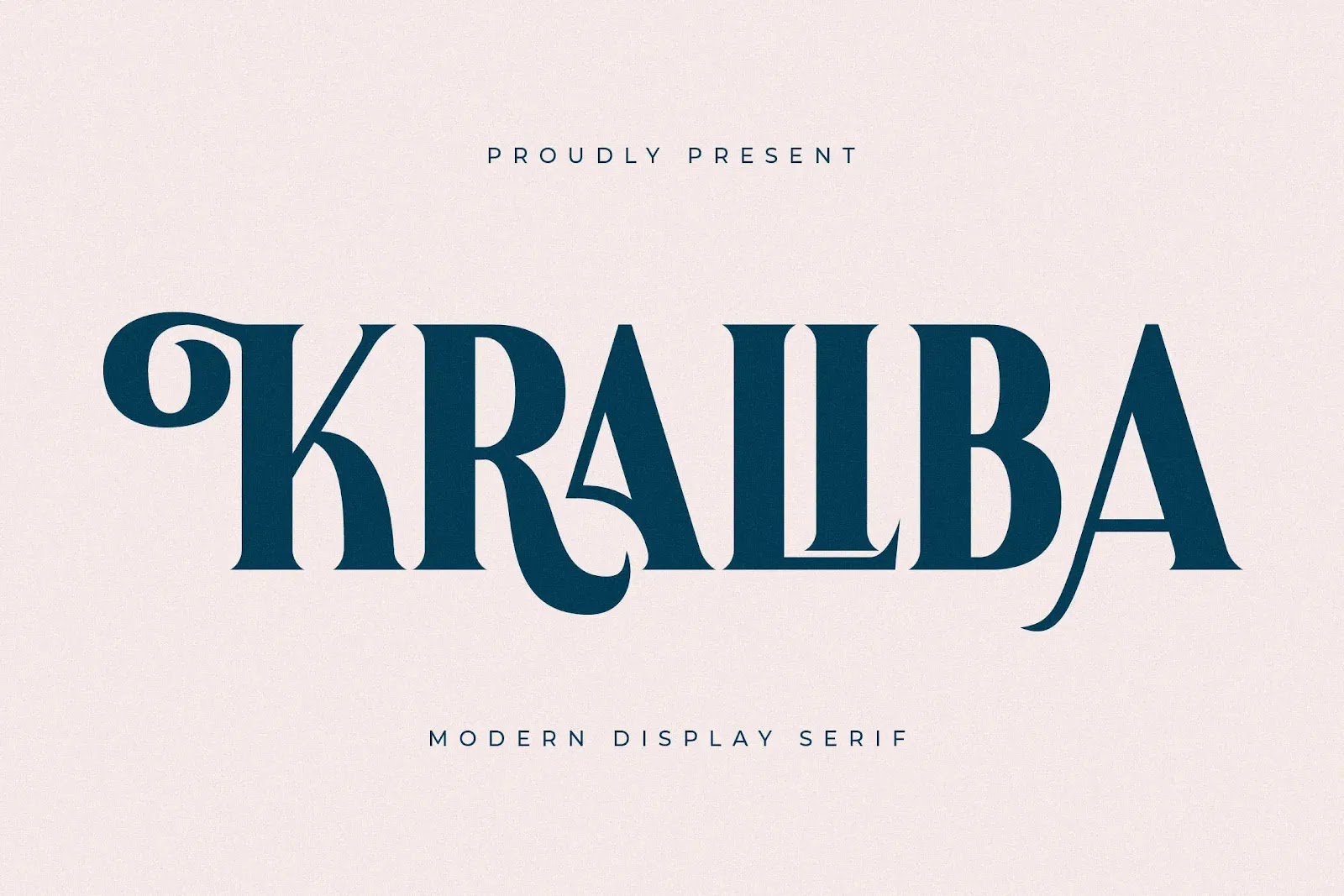
Kraliba – Modern Display Serif Font is a luxurious serif typeface that embodies elegance, sophistication, and modern flair. Its high-contrast letterforms and refined details make it an ideal choice for projects that demand a touch of class. Whether used for logos, headlines, or editorial layouts, Kraliba’s strong character ensures it stands out while maintaining a graceful, polished appearance. The font's stylish curves and sharp serifs give it a distinctive look, perfect for upscale design work.
Versatile and expressive, Kraliba fits seamlessly into a wide range of creative applications. From branding projects and homeware designs to product packaging, posters, and apparel, this display serif adds a luxurious edge that elevates the overall visual experience. It's particularly well-suited for projects involving invitations, greeting cards, name cards, labels, and book covers, where elegance and readability must go hand in hand.
Designed for designers seeking both beauty and functionality, Kraliba – Modern Display Serif Font includes a full character set that supports high-end typography. Whether you're working on fashion branding, photography watermarks, or special event graphics, this font delivers the sophistication and charm required to make your designs memorable. Kraliba is not just a typeface—it’s a statement of style for any project that needs a refined, luxurious serif touch.